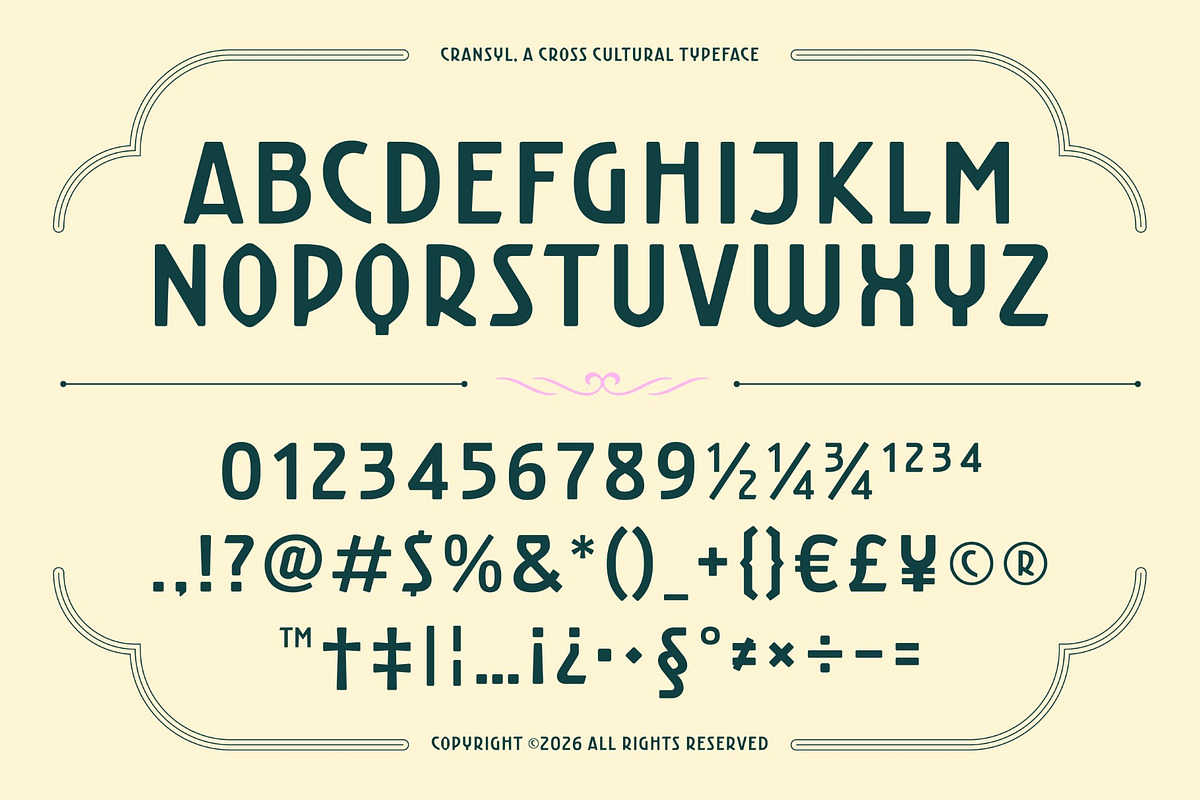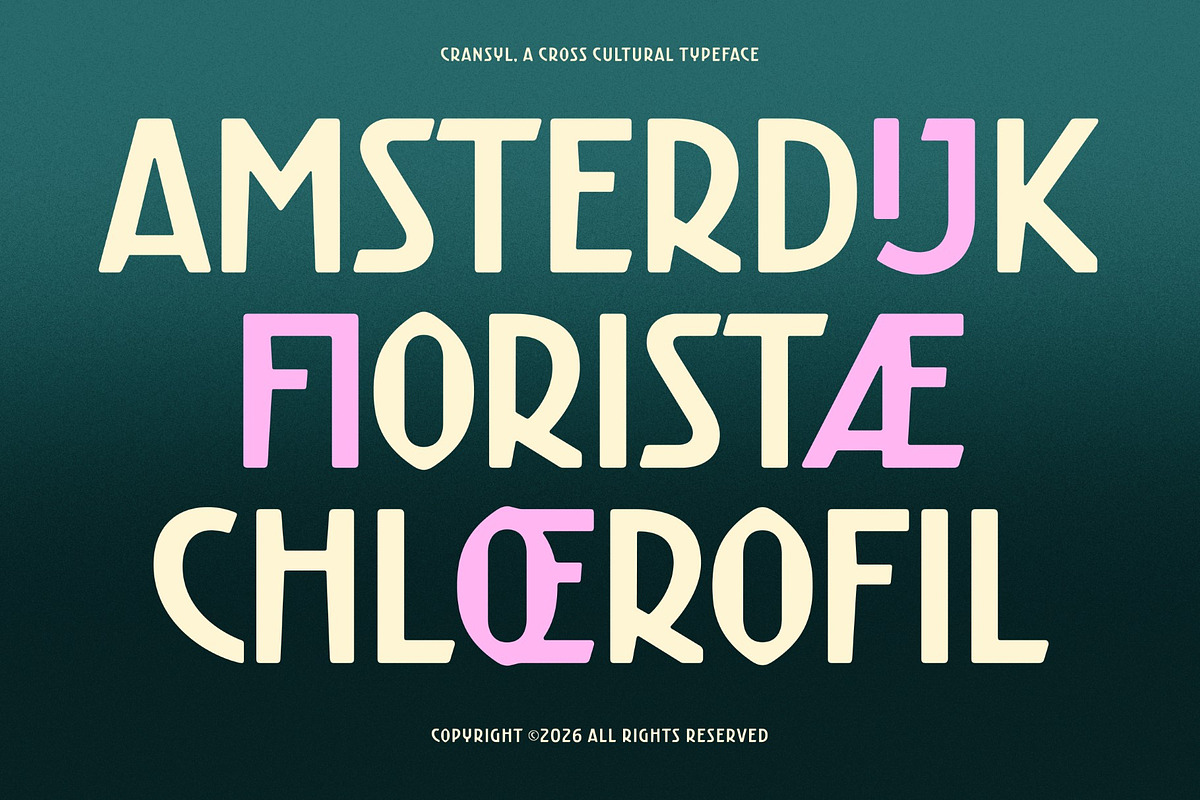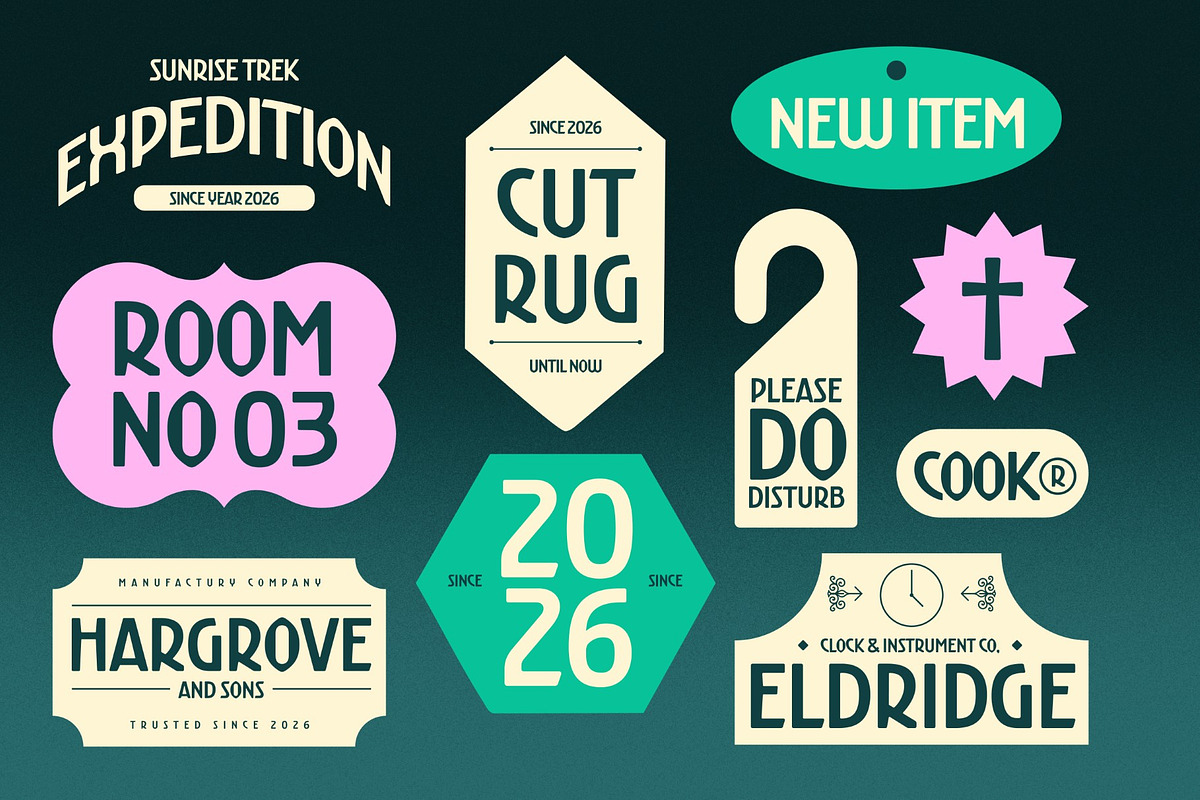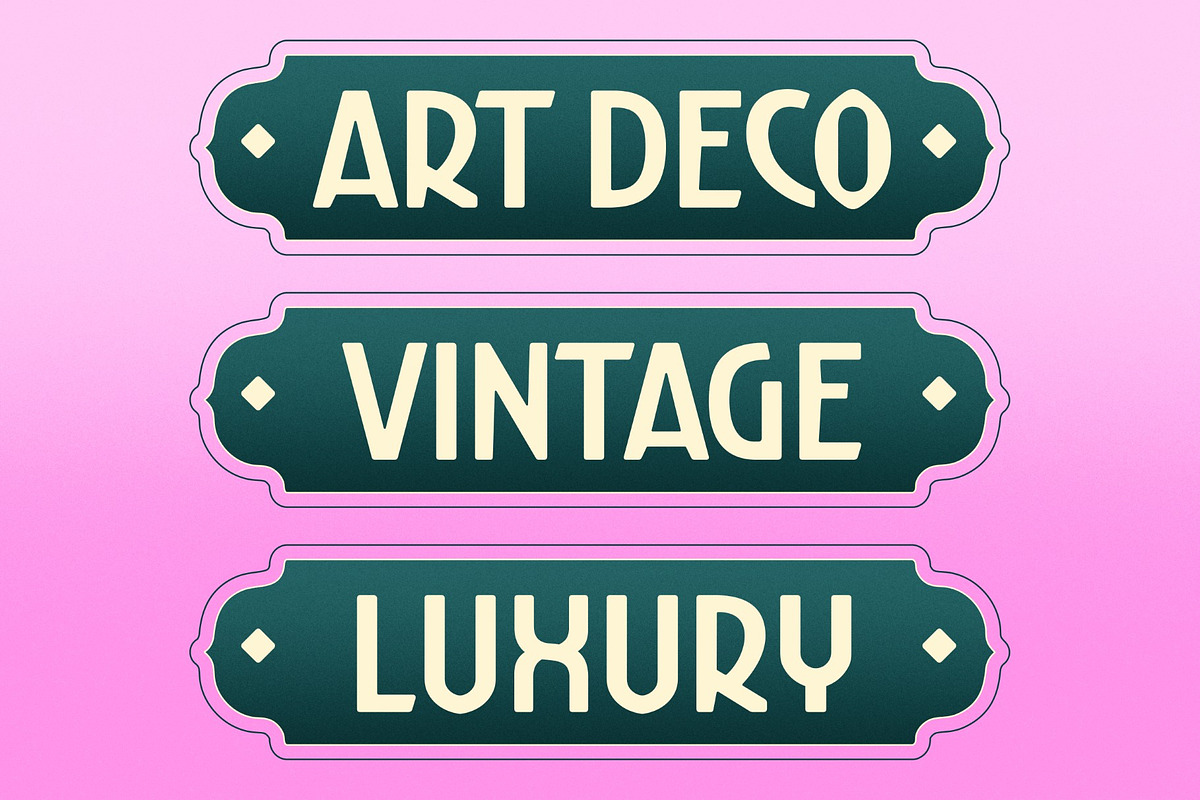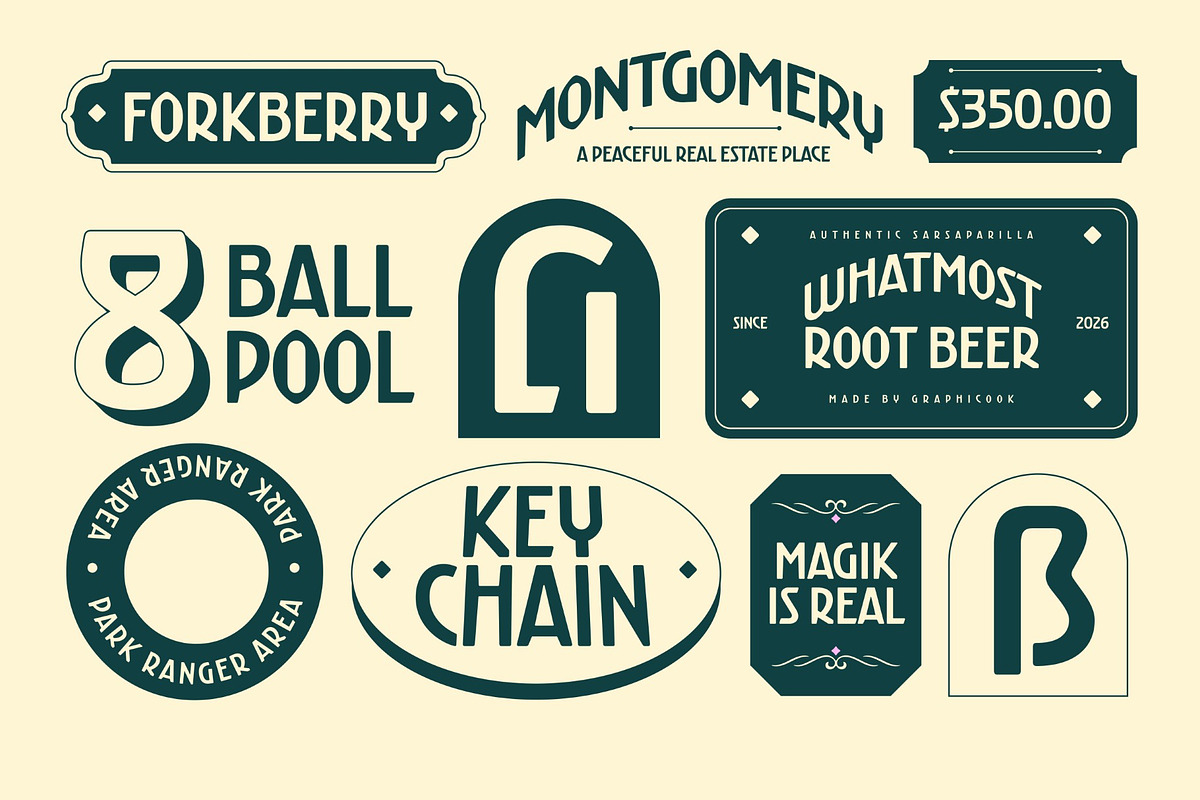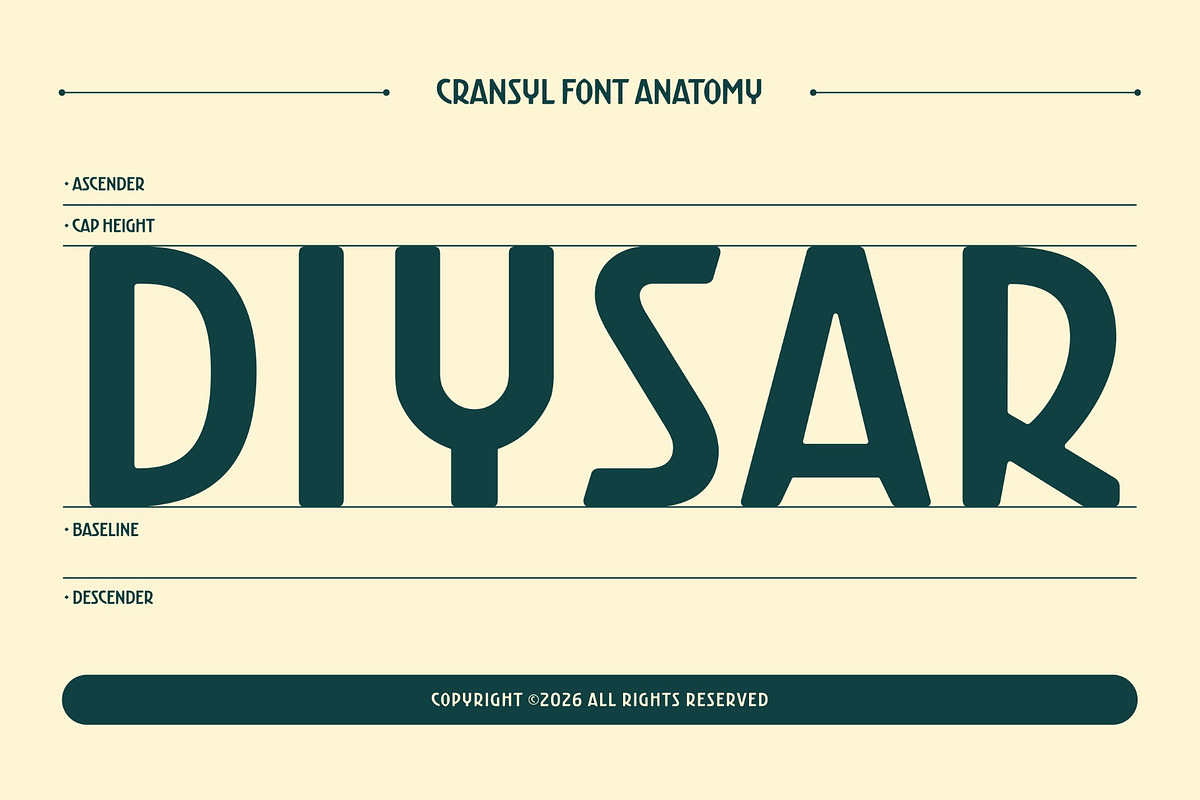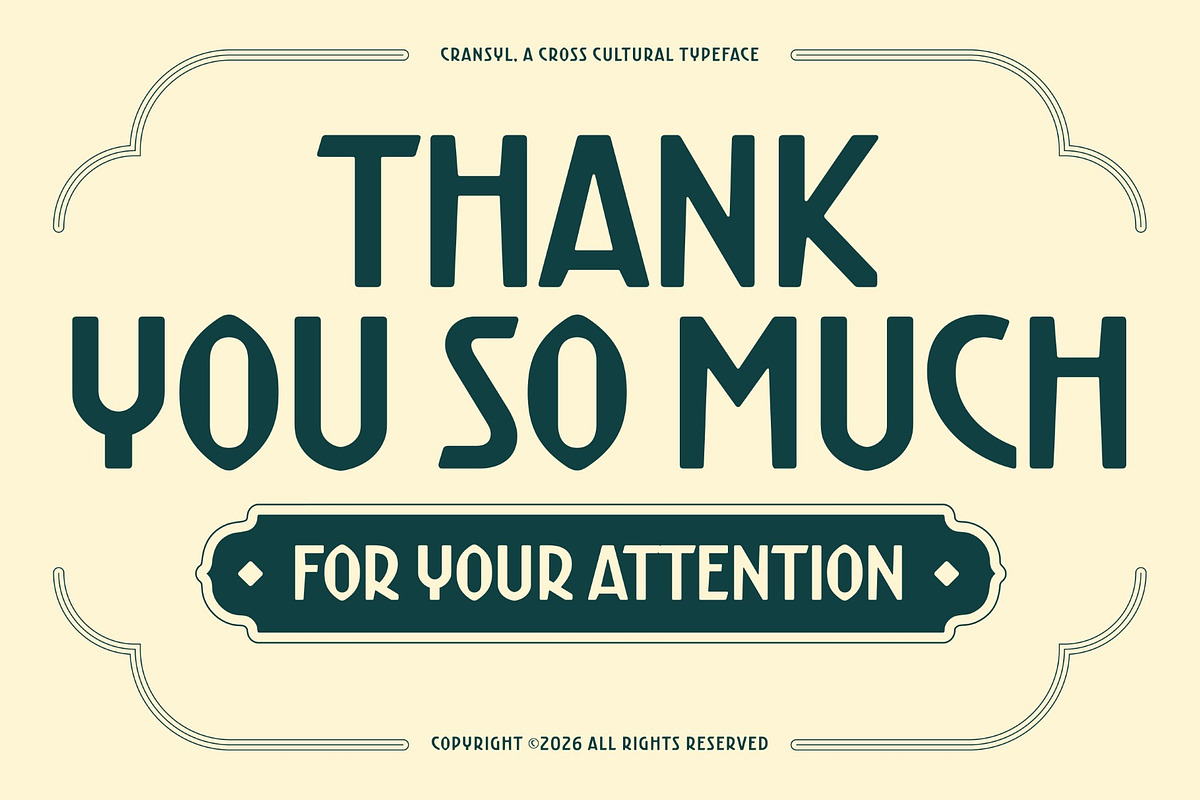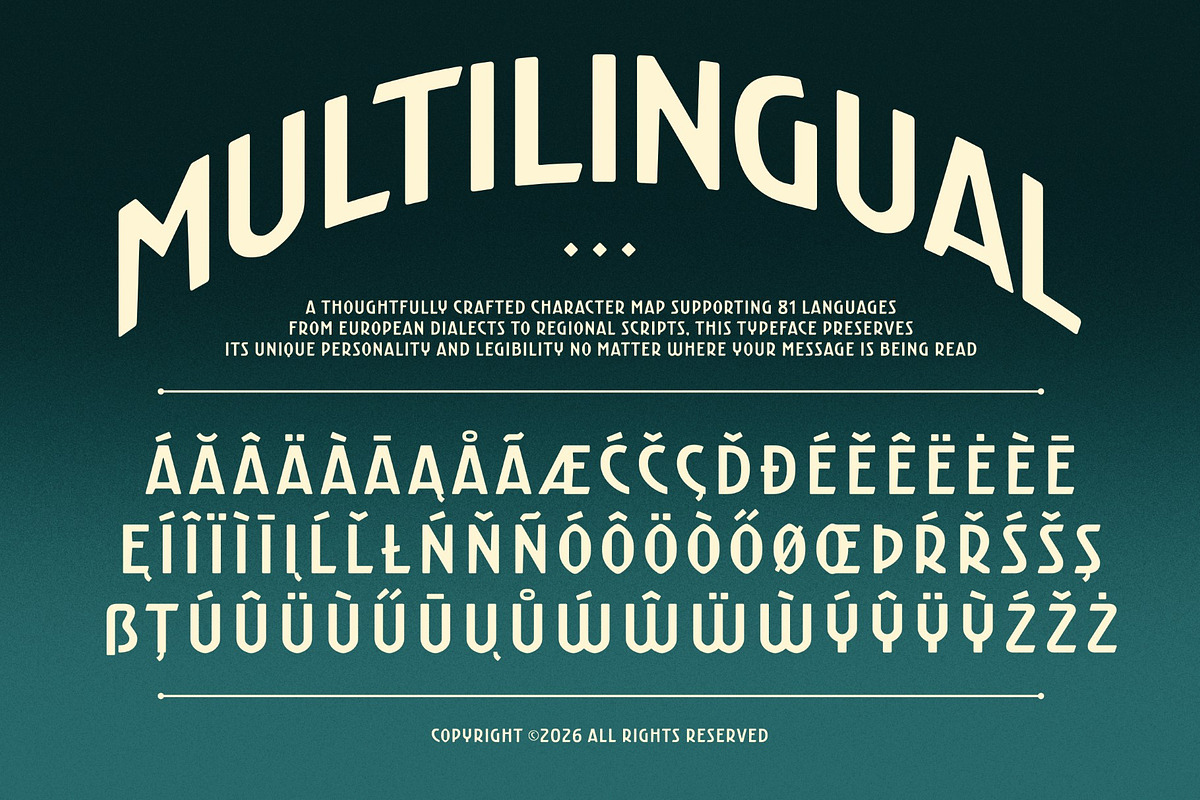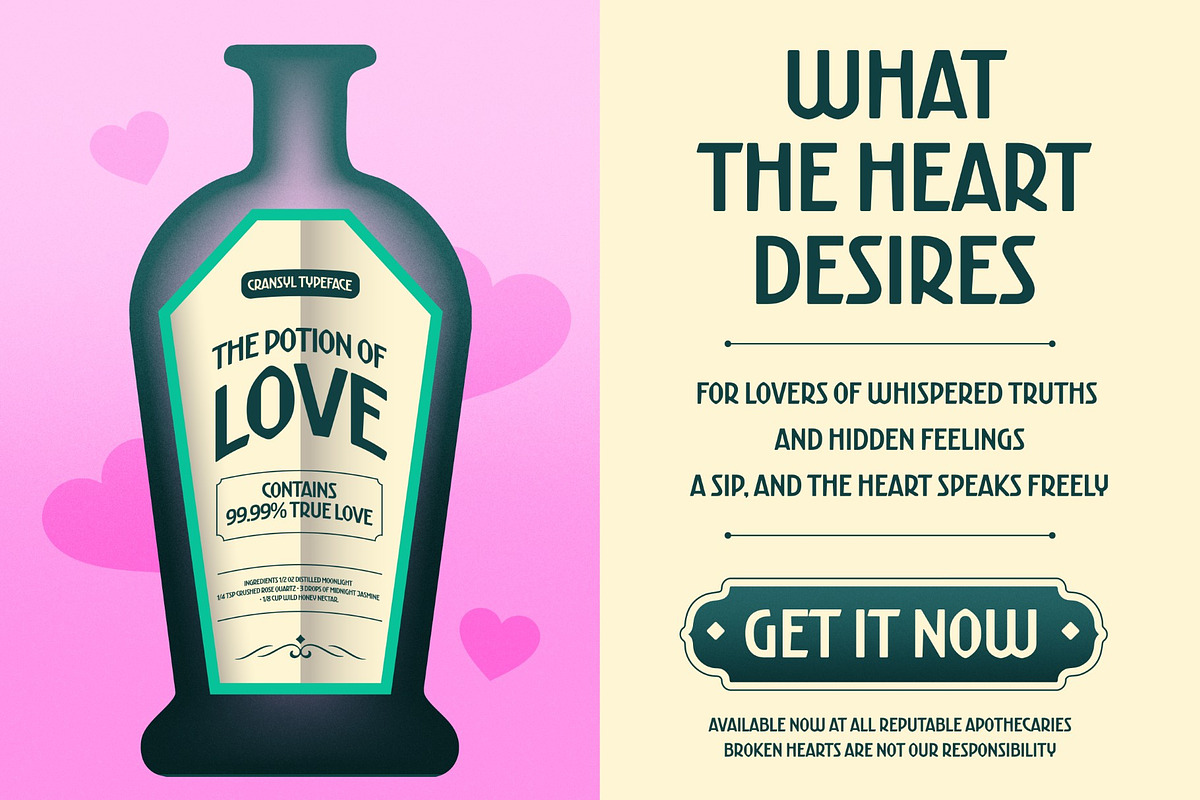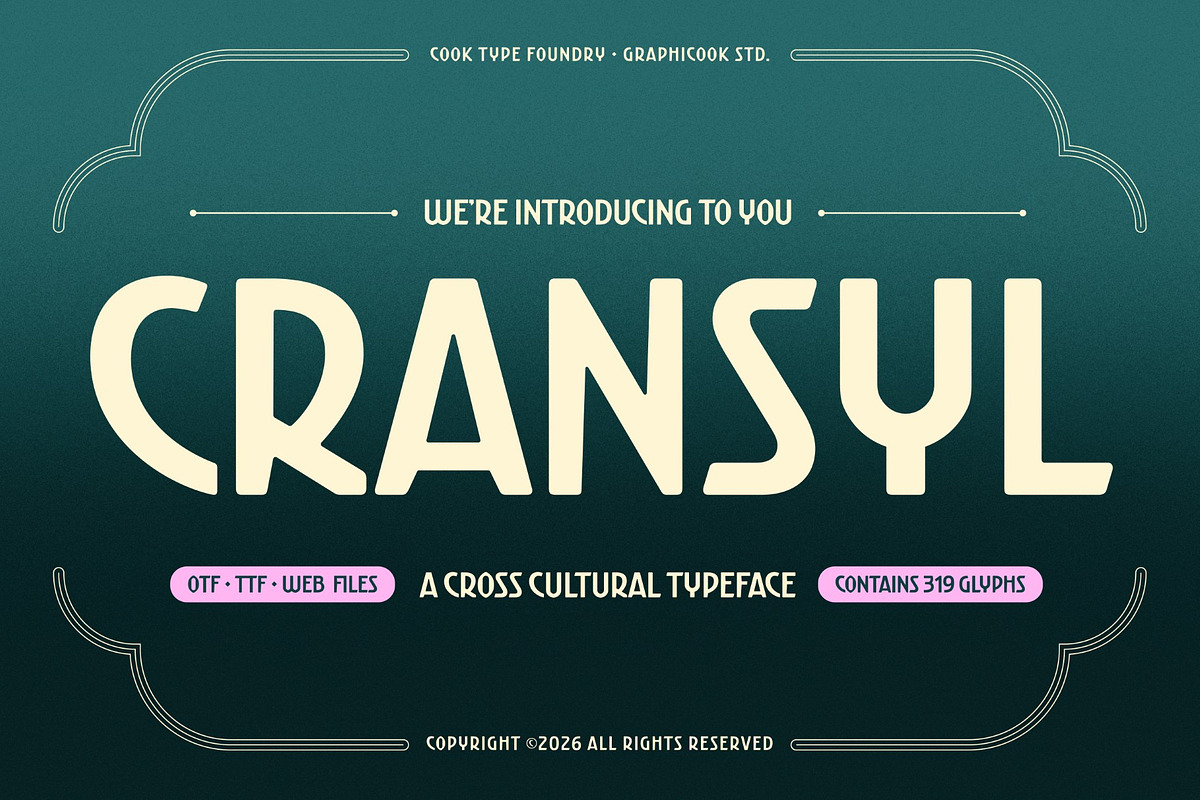
Cransyl
Cransyl is a modern display font crafted with a unique and elegant character, blending clean letterforms with a distinctive artistic touch. Its strong visual appeal, combined with a refined and stylish look, makes it a perfect choice for a wide range of creative and professional design projects.
It is perfect for headlines, logotypes, magazines, packaging, quotes, movies, games, cover albums, book covers, and flyers, it's a perfect solution for creating eye-catching designs that stand out in any context.